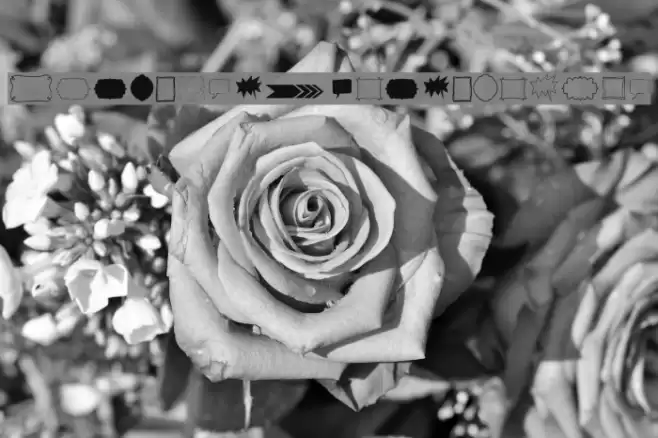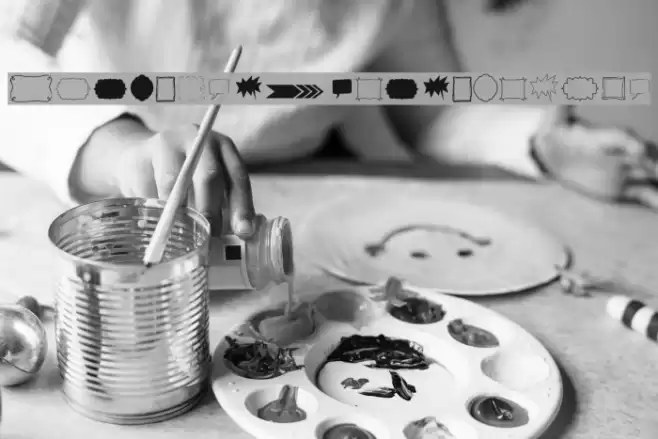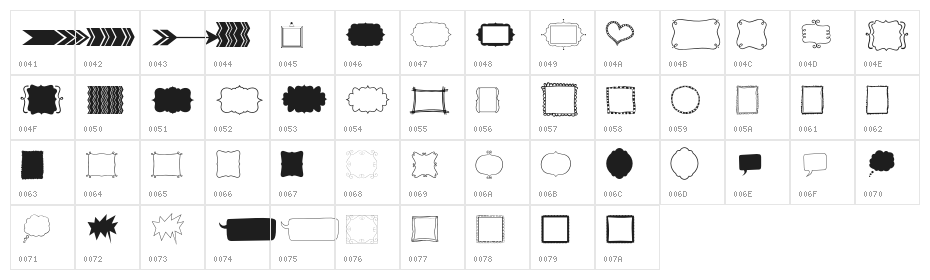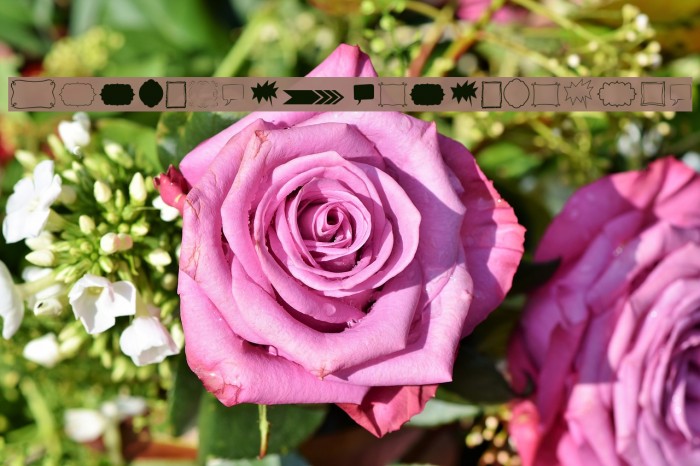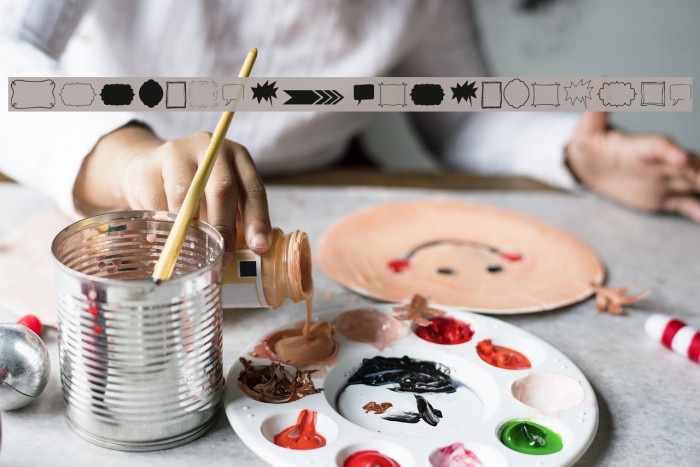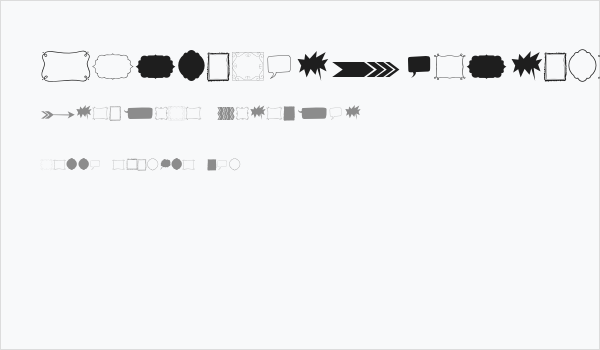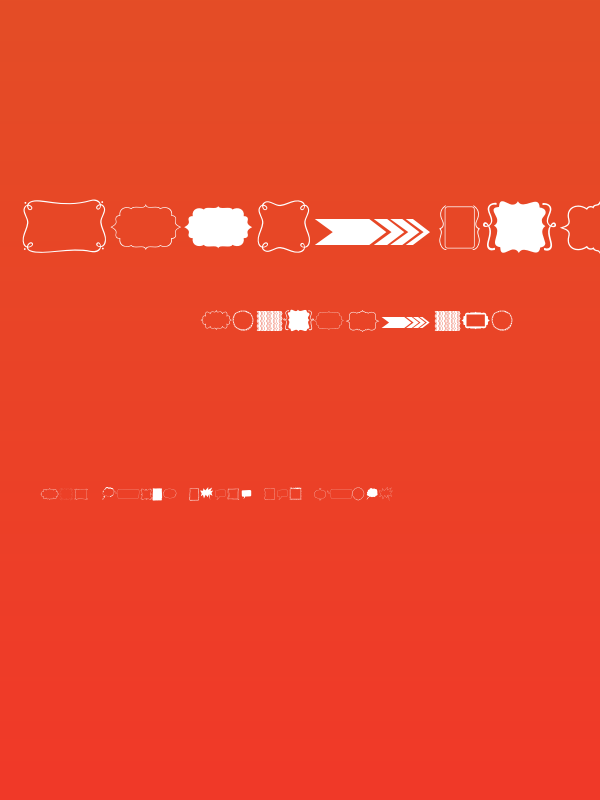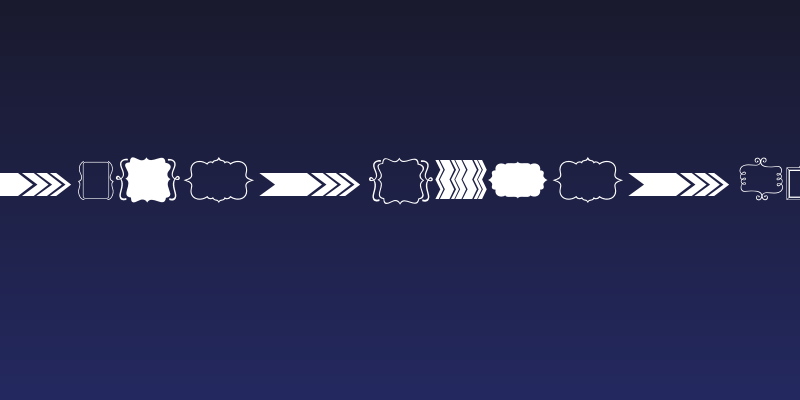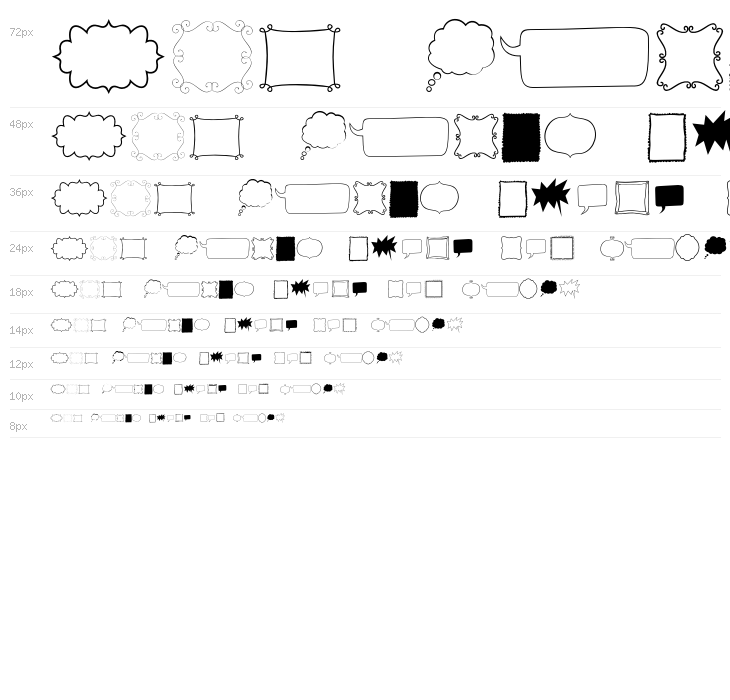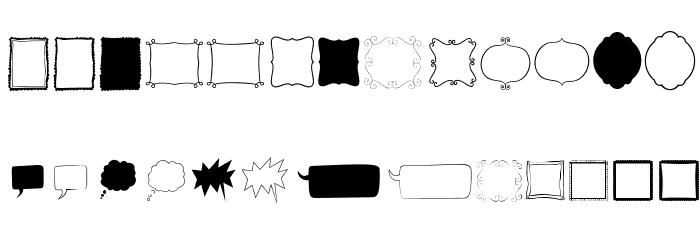
KGFlavorAndFramesTwo Font
KGFlavorAndFramesTwo Description
A decorative dingbat set featuring a variety of hand-drawn frames, speech bubbles, arrows, and comic-style elements in both filled and outline styles. The shapes are whimsical and playful, with irregular, sketch-like lines and a mix of ornate and simple forms.
Hand-drawn decorative frames and comic elements in a playful style from Uncategorized fonts.
- Proposed Projects: Scrapbooking, invitations, comic strips, classroom materials, posters, digital stickers.
- Overall Style: Decorative, Playful, Hand-drawn
- Use Case: Decorative accents, speech bubbles, frames for images or text.